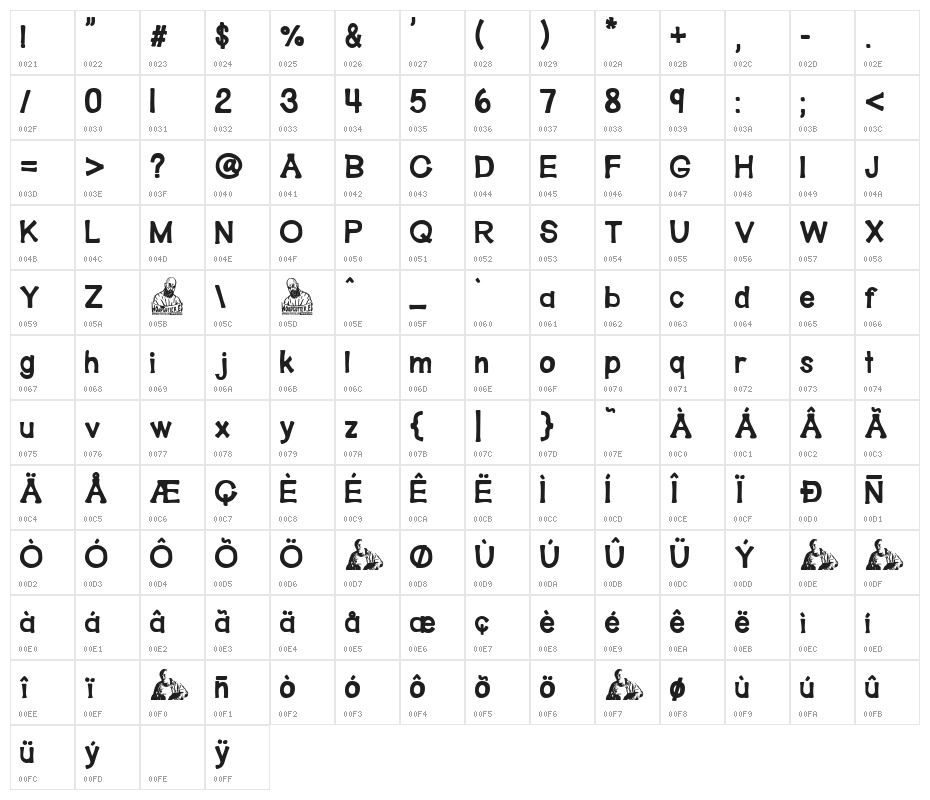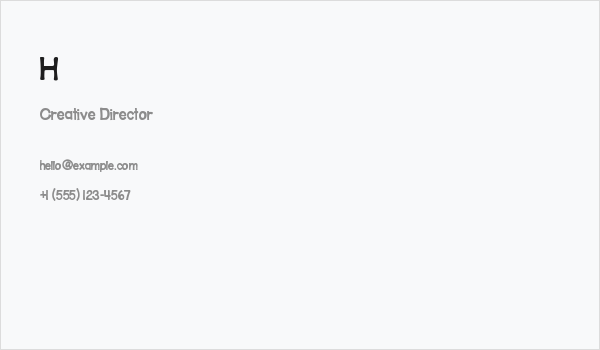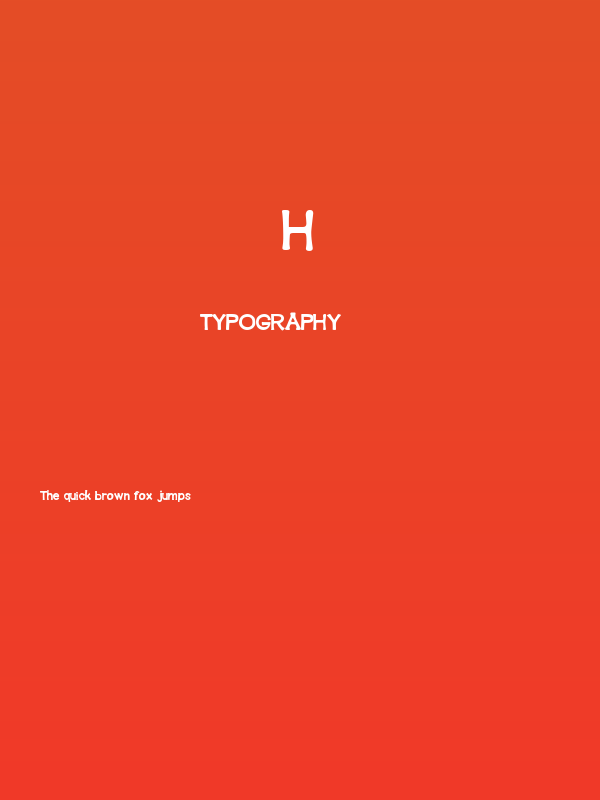
H Font
| Gesamtstil | Playful, Casual, Whimsical |
| Anwendungsfall | Headlines, Posters, Children's materials, Informal branding |
| Vorgeschlagene Projekte | Children's books, posters, greeting cards, informal branding, educational materials. |